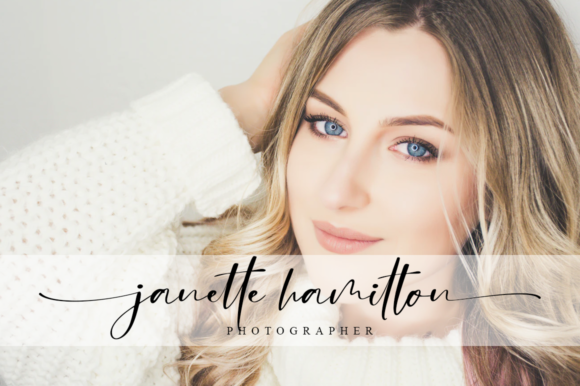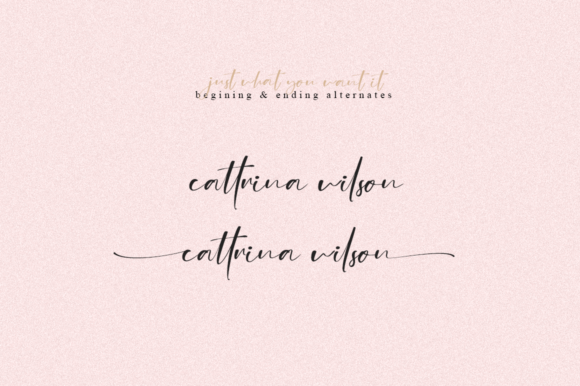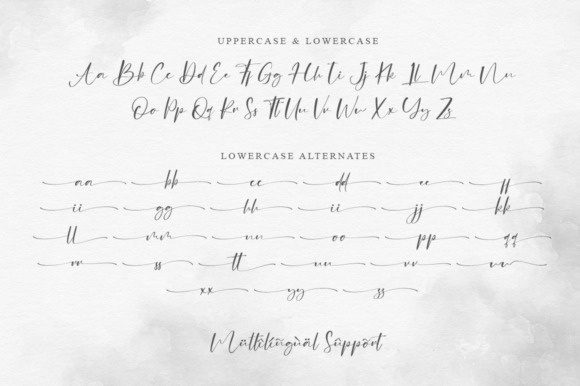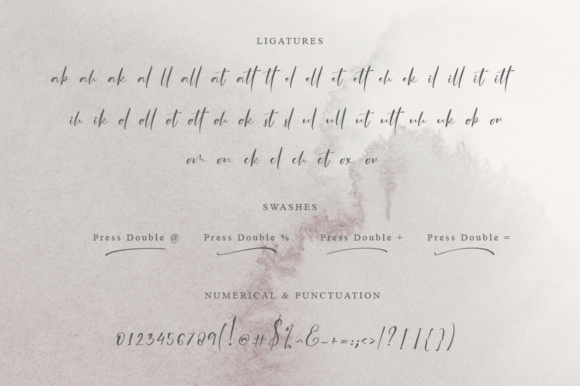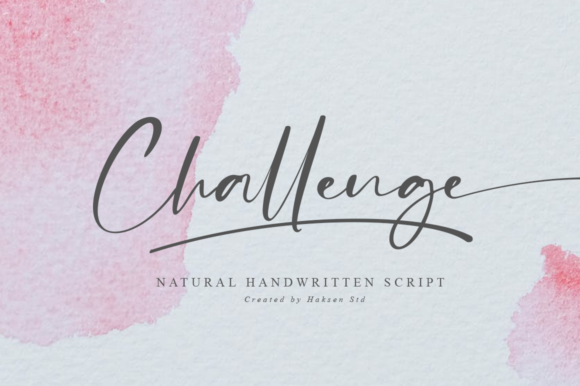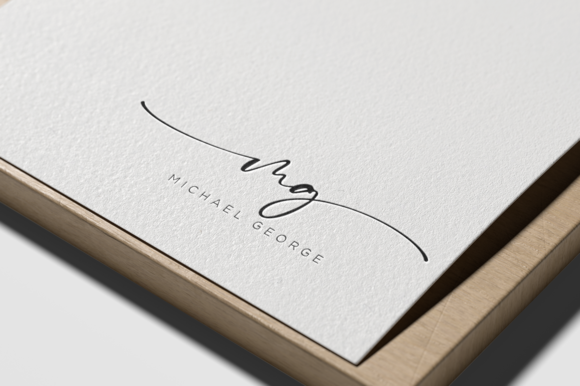
About Challenge Font
Challenge is an exquisite and graceful handwritten font that exudes elegance and sophistication. With its PUA encoding, accessing the various glyphs and swashes is effortless, allowing you to explore the font’s full potential and creativity. Here are some ideas on how to make the most of Challenge’s beauty and versatility:
1. Wedding Invitations: Create stunning and luxurious wedding invitations with Challenge, setting the tone for a memorable and elegant celebration.
2. Thank You Cards: Design heartfelt and refined thank you cards, expressing gratitude with a touch of sophistication.
3. Quotes and Typography Art: Craft captivating and artistic typography art and quote posters, adding inspirational messages with elegance.
4. Greeting Cards: Create chic and sophisticated greeting cards for various occasions, leaving a lasting impression on recipients.
5. Logos and Branding: Utilize Challenge for logos and branding materials, infusing your brand identity with a sense of grace and refinement.
6. Business Cards: Design elegant and memorable business cards with Challenge, leaving a lasting impact on potential clients and partners.
7. Personal Stationery: Use Challenge for personal stationery, including letterheads and notecards, reflecting your exquisite taste.
8. Book Covers: Apply Challenge to book covers, adding an artistic touch of elegance to your literary works.
9. Social Media Graphics: Design captivating and sophisticated social media posts with Challenge, attracting attention to your content.
10. Art Prints: Create refined art prints using Challenge, offering art enthusiasts exclusive and graceful pieces.
11. Packaging and Labels: Utilize Challenge for packaging and label designs, giving your products an elegant and distinguished look.
12. Event Invitations: Design exclusive and artistic invitations for special events and celebrations, showcasing the allure of Challenge.
13. Signage and Displays: Apply Challenge to signage and displays, making an elegant and lasting statement in various settings.
14. Magazine Headlines: Use Challenge for magazine headlines, adding a touch of sophistication to editorial layouts.
15. Website and Blog Headers: Implement Challenge in website banners and blog headers, elevating the visual appeal of your online platform.
Challenge’s elegant and flowing style, along with its blend of classic calligraphic influences and contemporary freshness, makes it a versatile and timeless choice for a wide range of design projects. Fall in love with Challenge and unleash its charm to bring your projects to the highest levels, leaving a lasting impression on your audience and adding a touch of refined beauty to your creations.